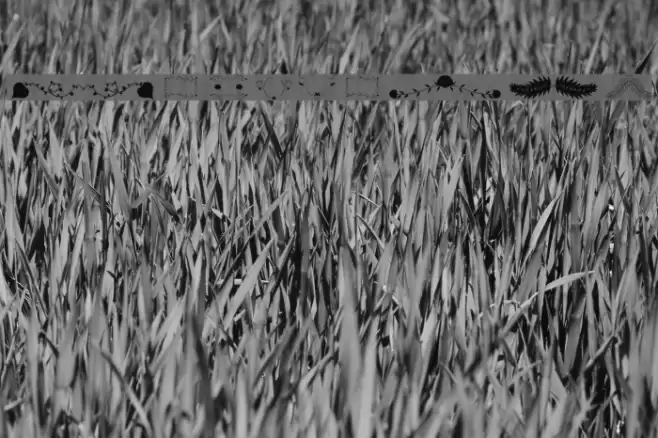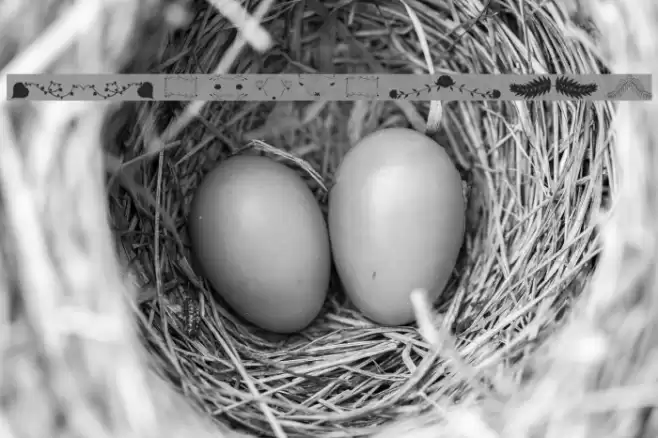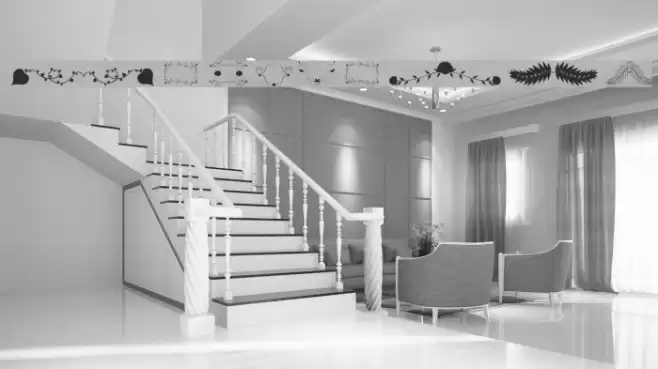
Florality Font
Florality Description
This is a decorative font featuring floral and nature-inspired elements. Each character is uniquely designed with intricate patterns of leaves, flowers, and vines, creating a whimsical and artistic appearance. The font is highly ornamental, making it ideal for projects that require a touch of elegance and creativity. The characters are not traditional letters but rather decorative symbols that can be used to embellish designs. The overall style is playful and artistic, with a focus on natural motifs.
A decorative font with floral and nature-inspired elements from Dingbats fonts.
- Proposed Projects: Ideal for wedding invitations, greeting cards, scrapbooking, and decorative posters.
- Use Case: Logos, Decorative elements